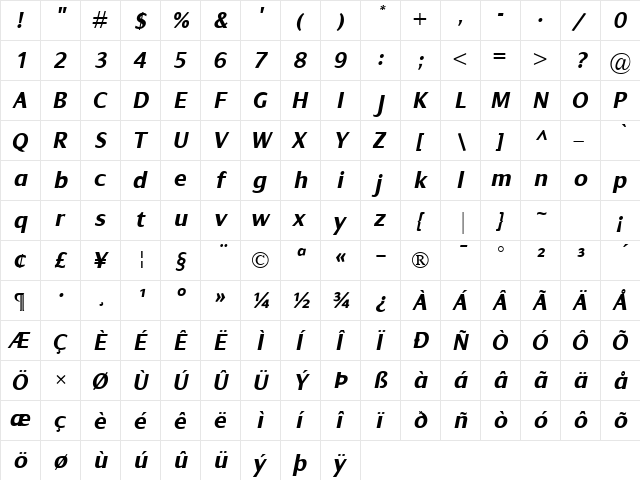
Dialog BoldItalic
Design Context for Dialog Typeface
Dialog is a composed and adaptable typeface that performs quietly and consistently across a wide range of design contexts. The slanted form adds forward momentum and visual energy. Its bold stroke weight gives it real presence on the page.
Pro Tip: Try Dialog for annotation and caption copy alongside an upright companion — the contrast in angle creates a dynamic but ordered typographic system.